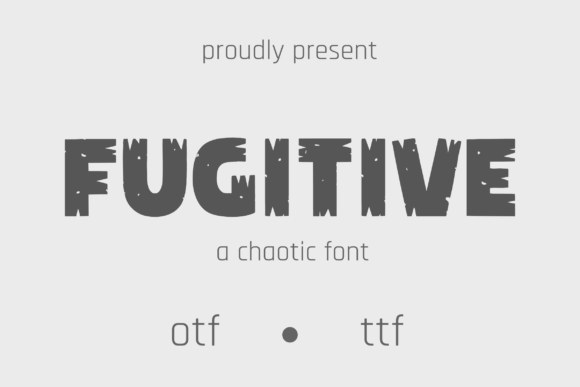
Fugitive Font: Adding a Rugged Touch to Your Projects
In the world of typography, fonts play a crucial role in conveying the tone and aesthetic of a project. Whether you’re designing a logo, creating a brochure, or crafting a website, the right font can make all the difference. If you’re looking to add a rugged, distressed feel to your projects, look no further than the Fugitive Font. In this article, we’ll take a closer look at this carefully crafted grunge font and explore its features, uses, and benefits.
What is Fugitive Font?
Fugitive Font is a grunge font designed to give your projects a rugged, worn-in feel. The font consists of both small and uppercase letters, each with its own unique level of distressing. The letters are carefully crafted to resemble worn, weathered text, with scratches, scuffs, and other imperfections that add to the font’s rugged charm.
Key Features of Fugitive Font
- Distressed texture: The Fugitive Font features a distressed texture that gives it a worn, weathered look.
- Uppercase and lowercase letters: The font includes both uppercase and lowercase letters, each with its own unique level of distressing.
- Scratches and scuffs: The letters feature scratches and scuffs that add to the font’s rugged feel.
- Carefully crafted: The font is carefully crafted to ensure that each letter is unique and visually appealing.
How to Use Fugitive Font
Fugitive Font is versatile and can be used in a variety of projects, including:
- Logo design: The font’s rugged, distressed texture makes it perfect for creating logos that need to convey a tough, rugged image.
- Brochures and flyers: The font can add a unique, eye-catching touch to brochures and flyers.
- Web design: The font can be used to create a rugged, edgy look for websites, particularly those in the outdoor or adventure niches.
- Print design: The font can be used in a variety of print design projects, including posters, business cards, and more.
Benefits of Using Fugitive Font
There are several benefits to using Fugitive Font in your projects, including:
- Unique look: The font’s distressed texture and rugged feel give it a unique look that can help your projects stand out.
- Flexibility: The font can be used in a variety of projects, from logos to web design.
- High-quality design: The font is carefully crafted to ensure that each letter is high-quality and visually appealing.
In conclusion, Fugitive Font is a carefully crafted grunge font that can add a rugged, distressed feel to your projects. With its unique texture, uppercase and lowercase letters, and scratches and scuffs, this font is perfect for designers looking to create a tough, rugged image. Whether you’re designing a logo, brochure, or website, Fugitive Font is a great choice. So why not give it a try and see how it can enhance your next project?